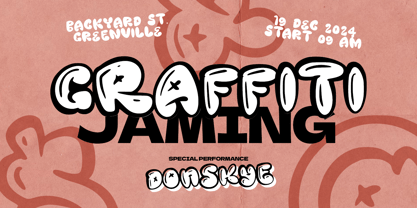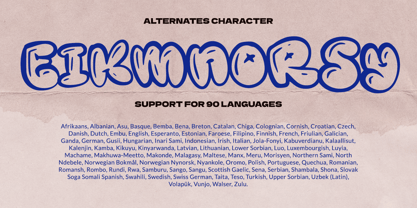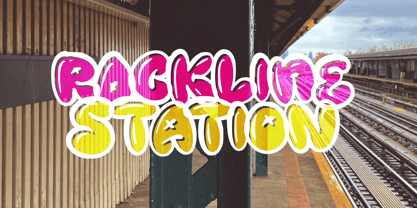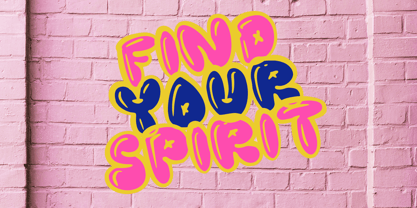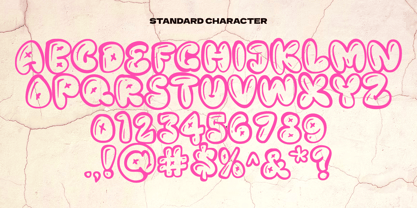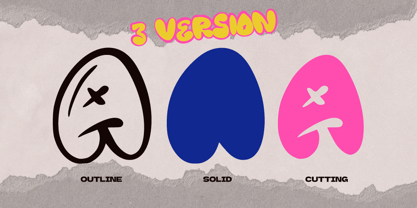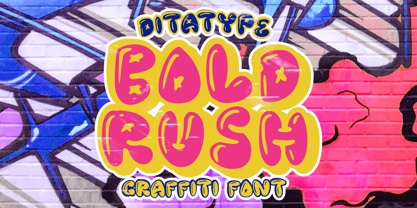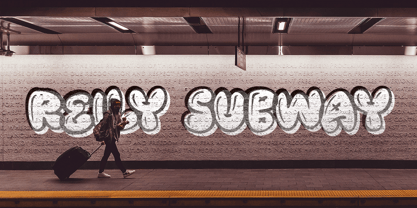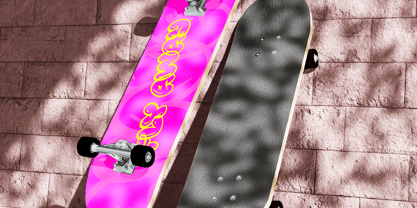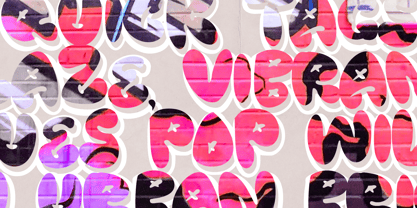
Boldrush
La familia tipográfica Boldrush fue diseñada por Donis Miftahudin y publicada por Ditatype. Boldrush contiene 3 estilos y opciones de paquete familiar. Más información sobre esta familia
Boldrush is a lively graffiti font crafted in uppercases, made with bubble-like rounded shapes and consistent letter proportions for a fresh street-art aesthetic. What makes Boldrush truly special is its three distinct versions—Outline, Solid, and Cutting—giving you endless creative options to elevate your designs. Whether you’re aiming for an edgy outline effect or a bold, filled-in style, Boldrush brings an energetic, urban flair that stands out in applications. In addition, enjoy the features here.
Features:
• Multilingual Supports
• Numerals and Punctuations
Boldrush fits in logos, posters, branding materials, packaging, print media, editorial layouts, and many more designs. Find out more ways to use this font by taking a look at the font preview.